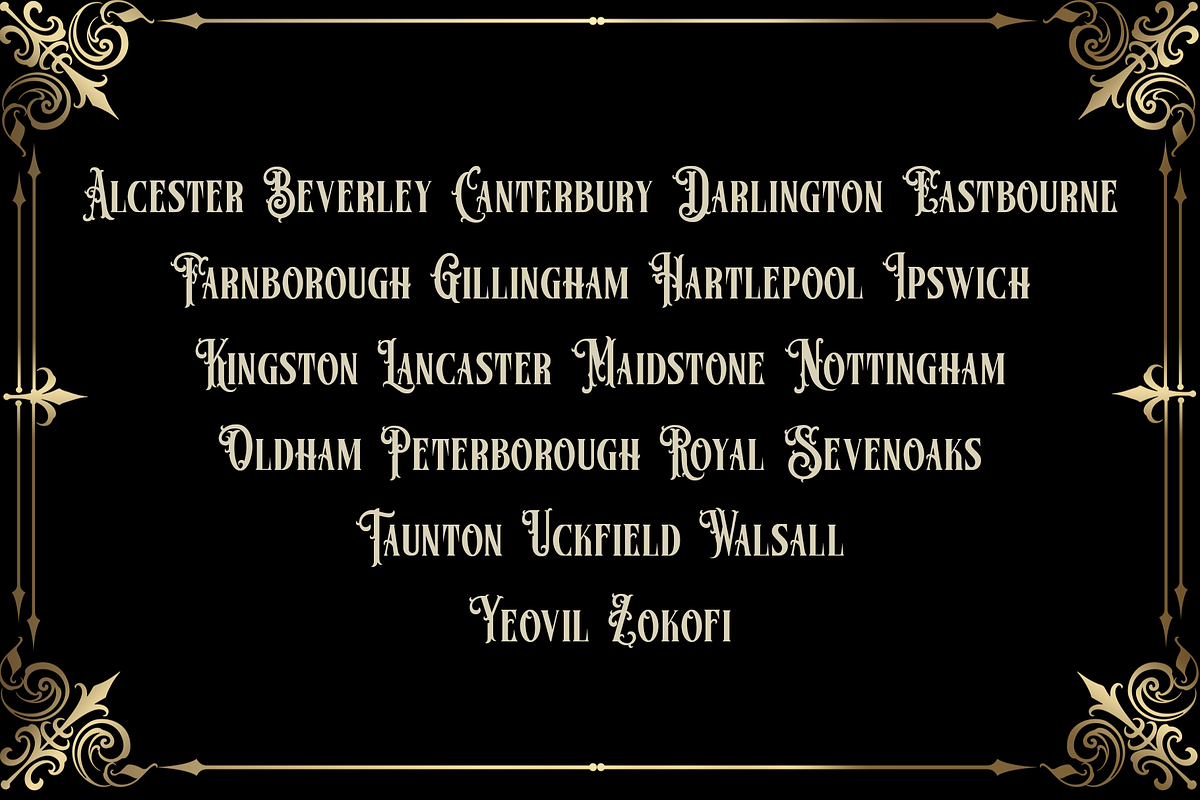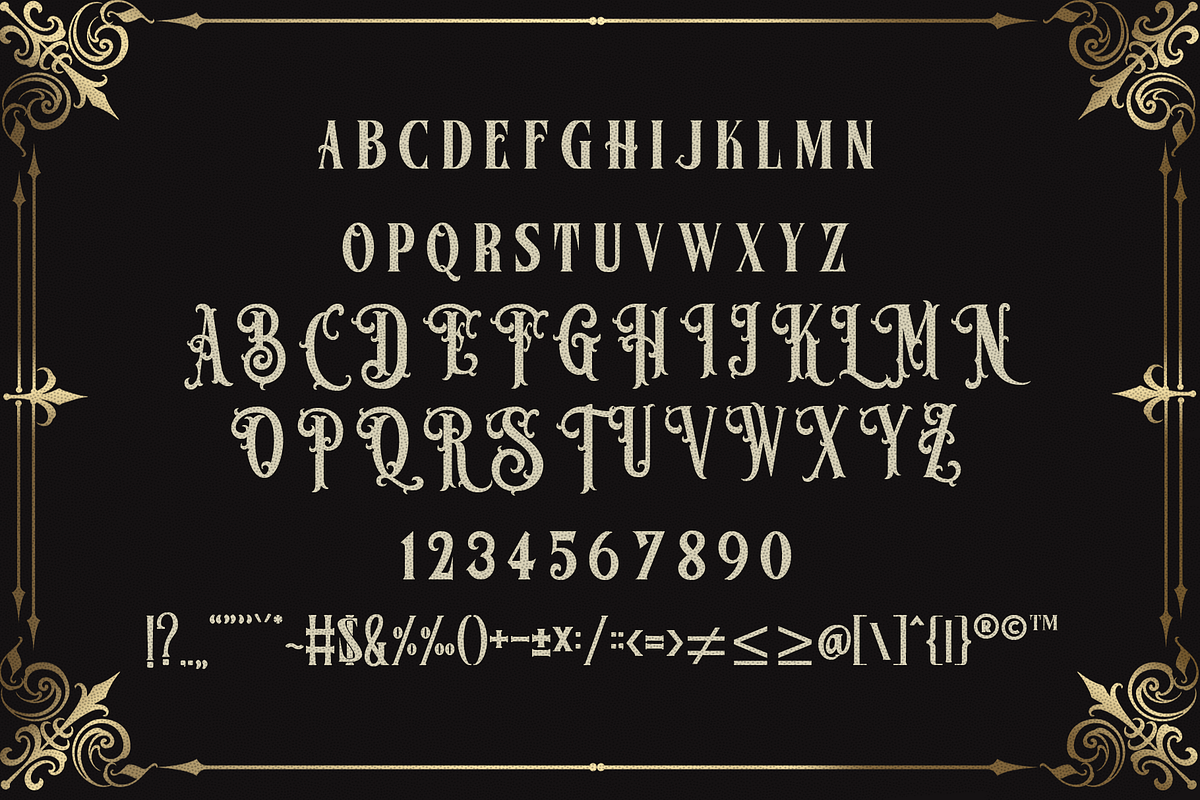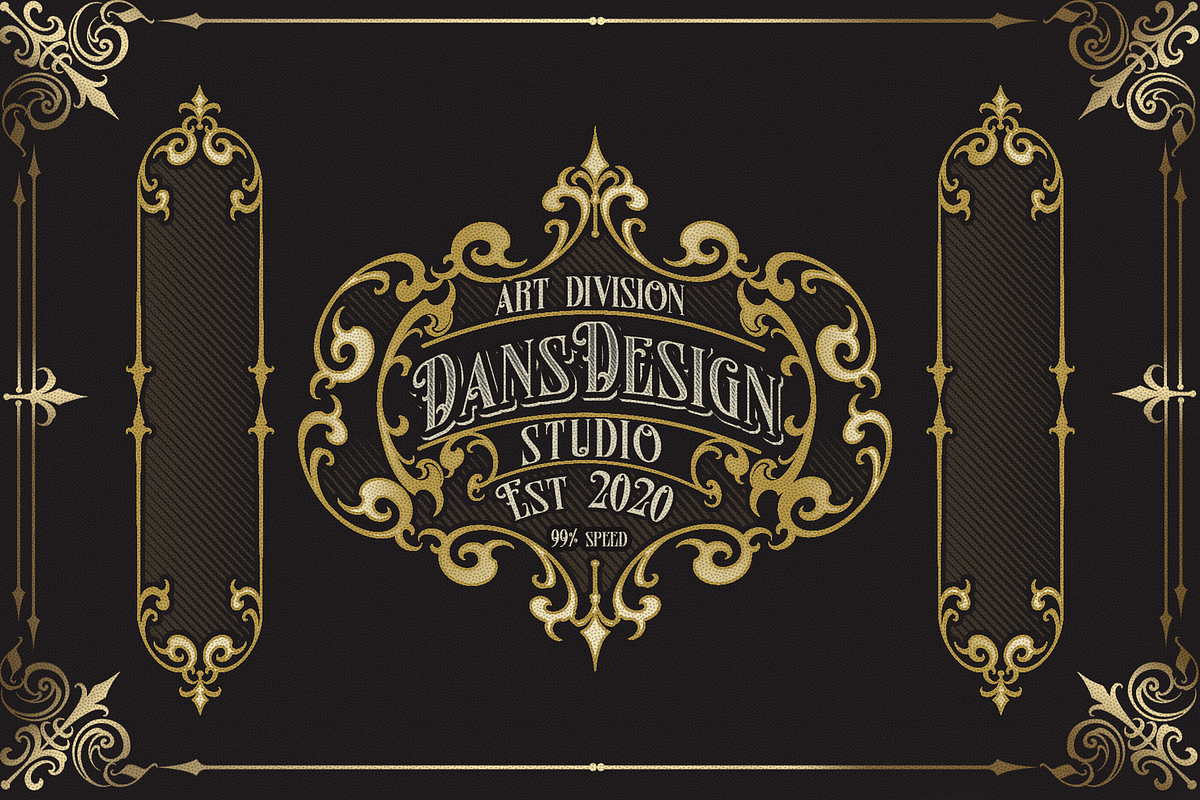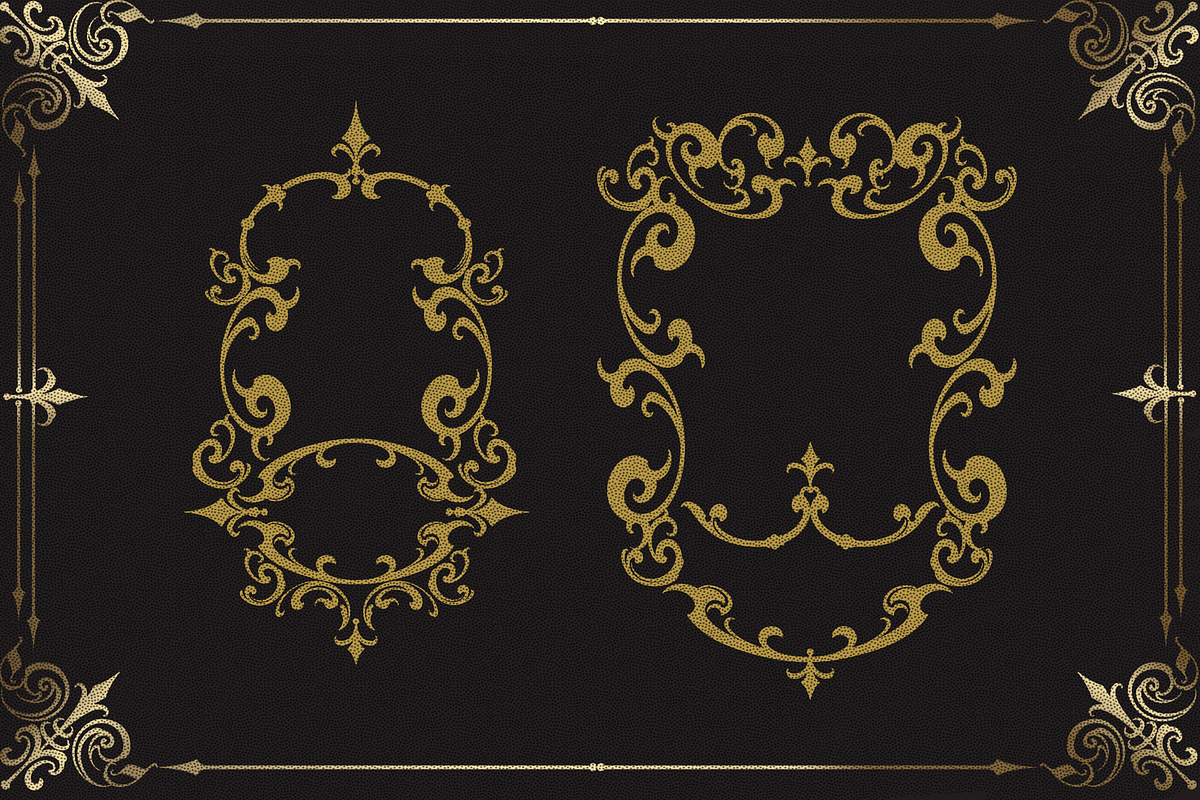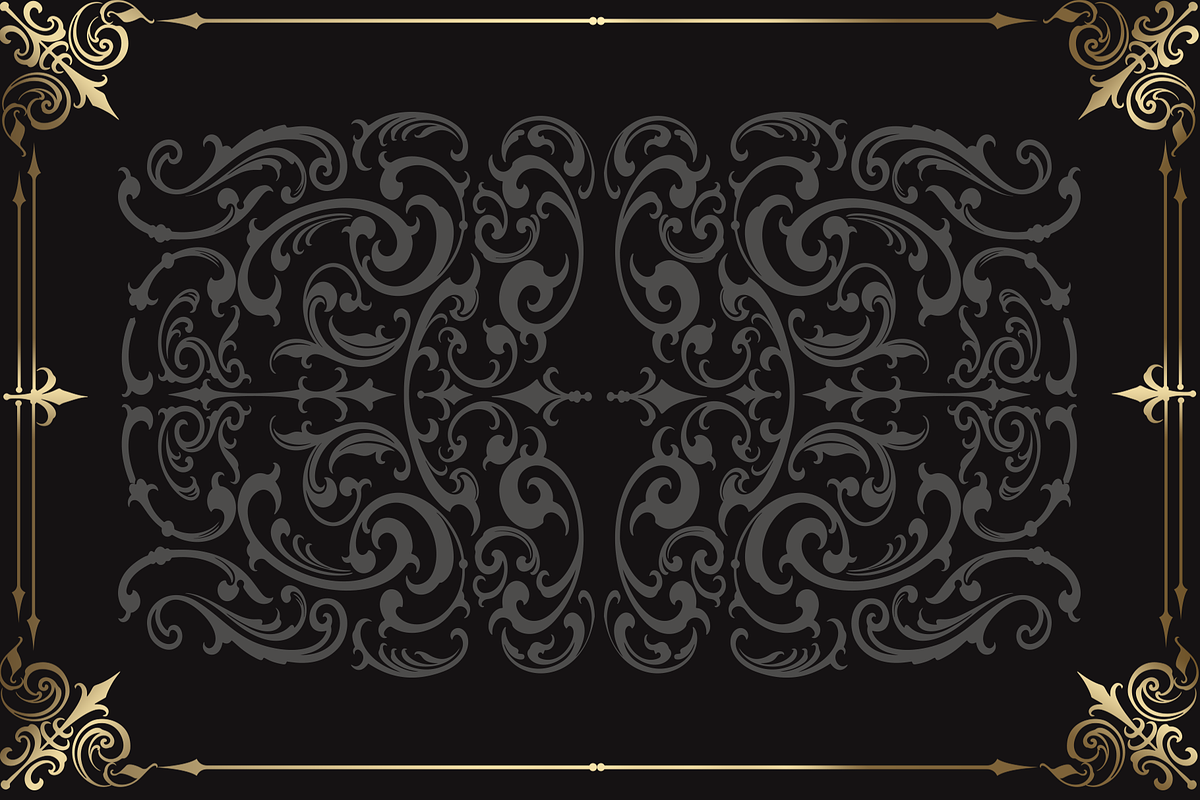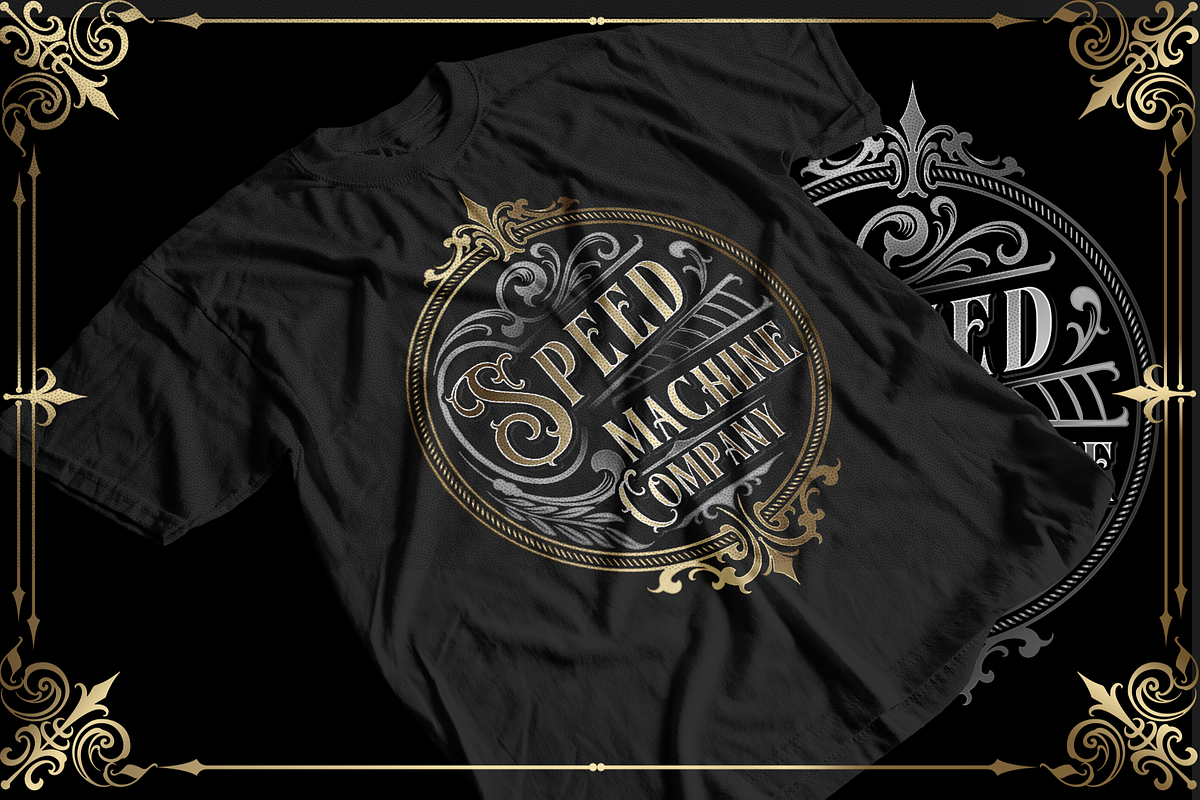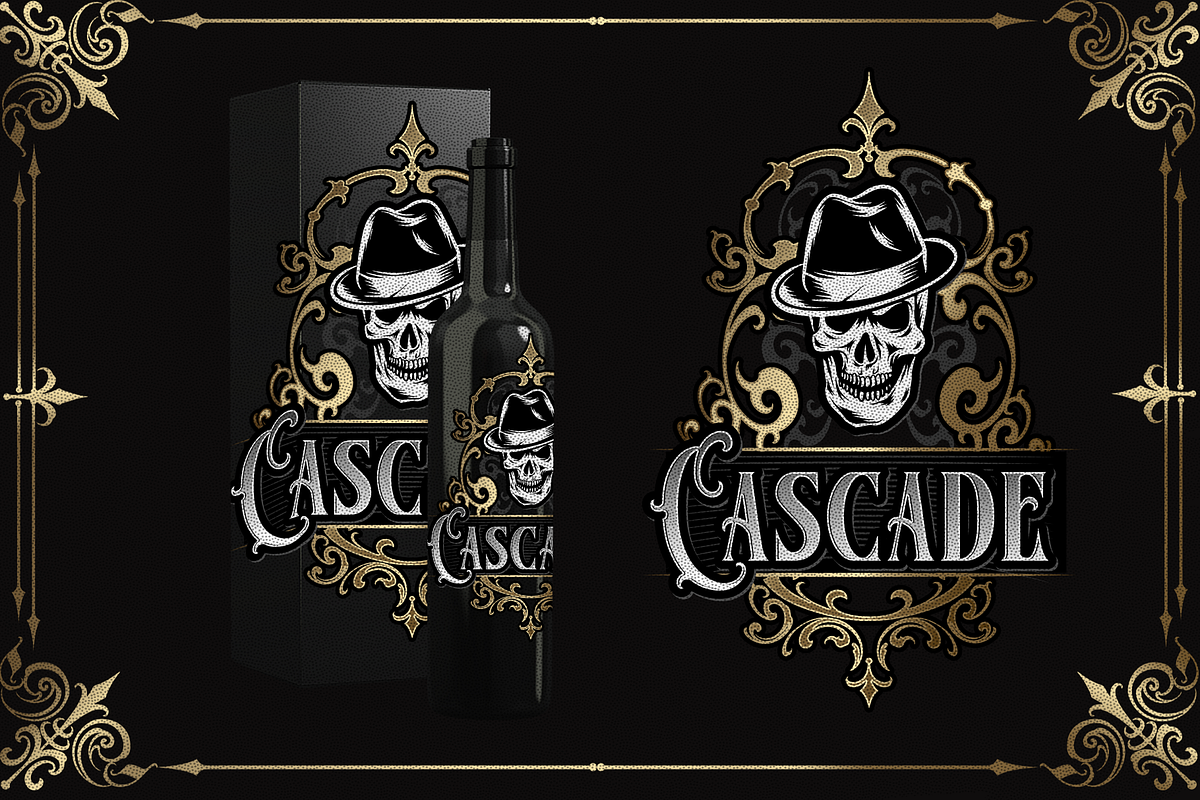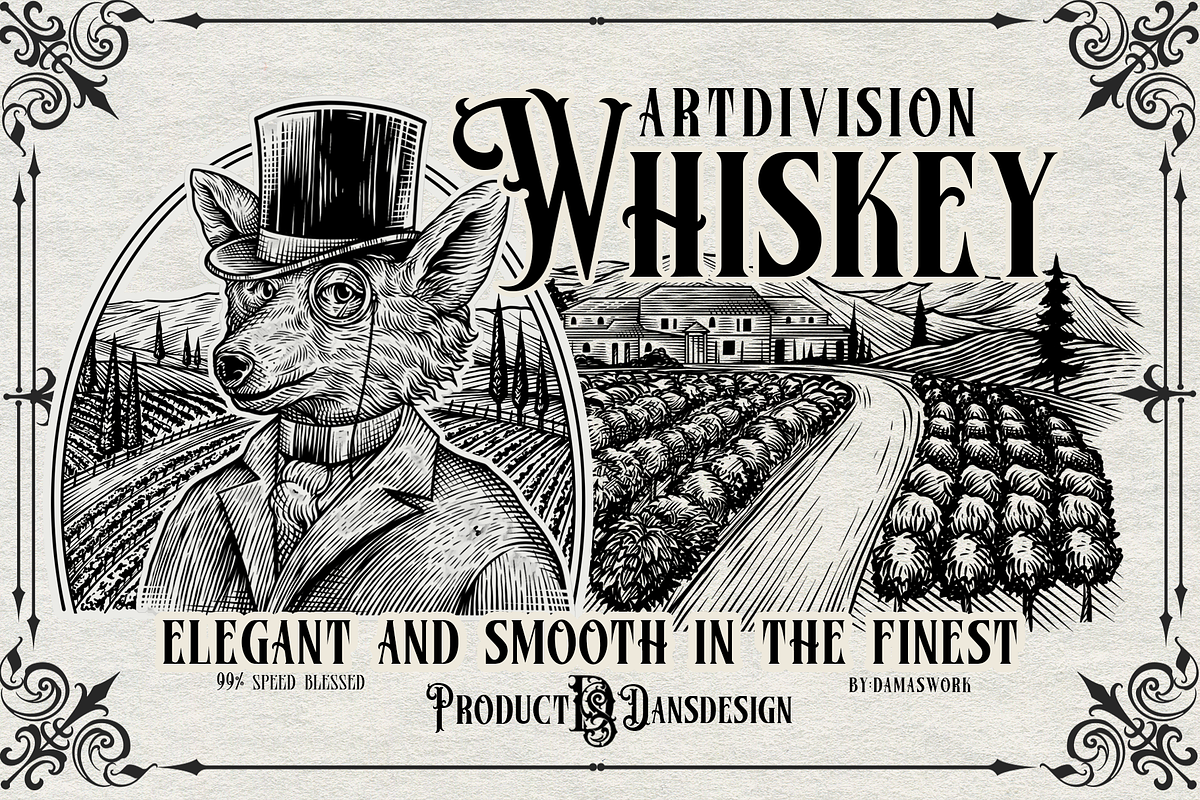
Black Fellas + EXTRAS
Dansdesign Proudly present Black Fellas vintage font, This font is made with references to various letters that I combine and design with my style.
Black Fellas + EXTRAS are great and usefull for product logo, poster title, headline, packaging, badge, wedding card logo, clothing brand logo, Vintage design and much more